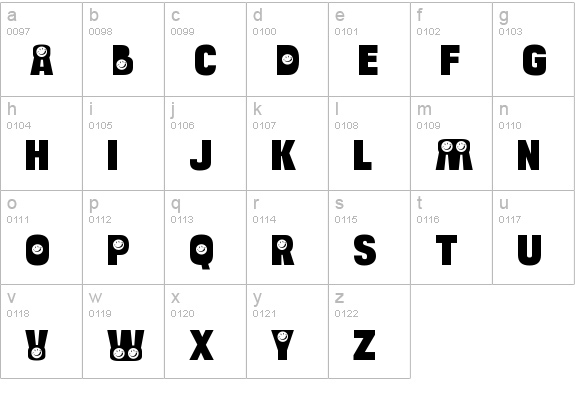
BulltoadSmile-Regular Font Details
BulltoadSmile-Regular is the standard, neutral variant in the BulltoadSmile typeface family \xE2\x80\x94 well suited to general body text, paragraphs, and standard typographic work.
BulltoadSmile-Regular font is a charming and playful typeface that is sure to bring a smile to your designs. With its bold lines and whimsical curves, this font exudes a sense of fun and creativity. Perfect for a variety of projects, from children's book covers to party invitations, BulltoadSmile-Regular adds a touch of lightheartedness to any design. Best of all, BulltoadSmile-Regular font is available for free download at FontsMarket.com. So go ahead and add this delightful font to your collection today and let your creativity shine with BulltoadSmile-Regular!